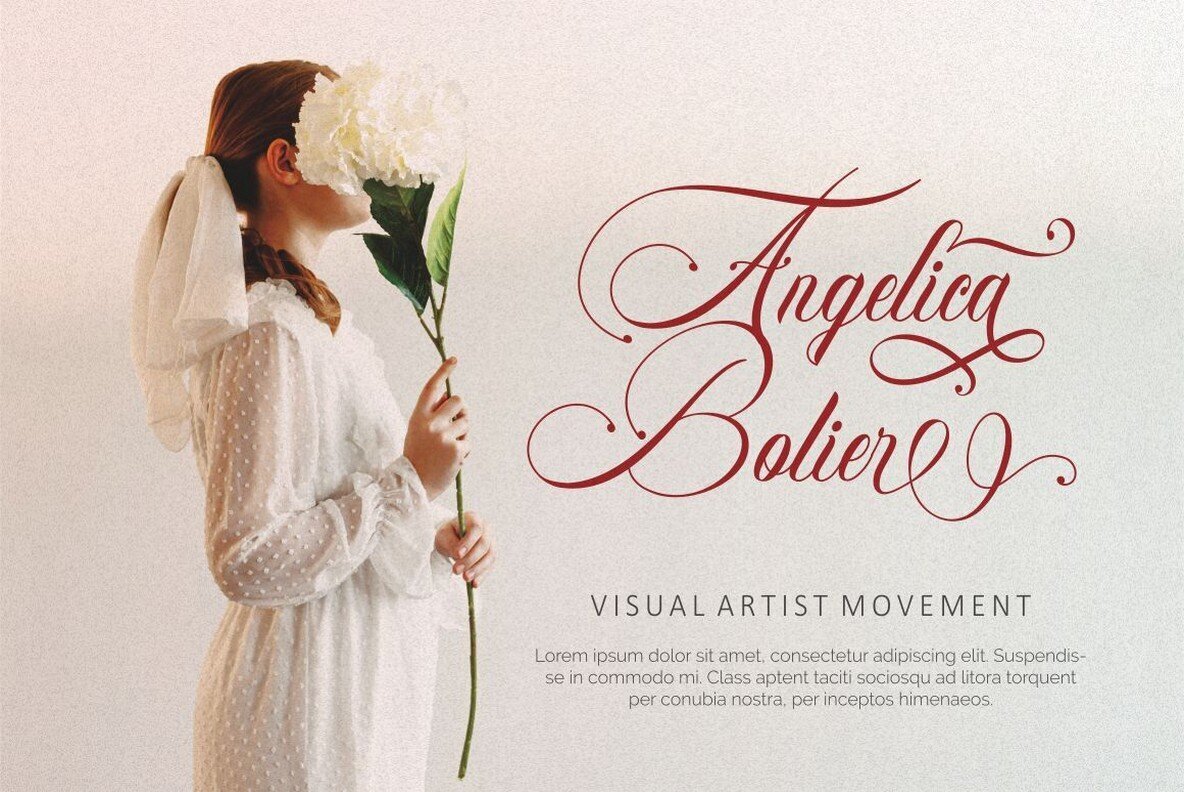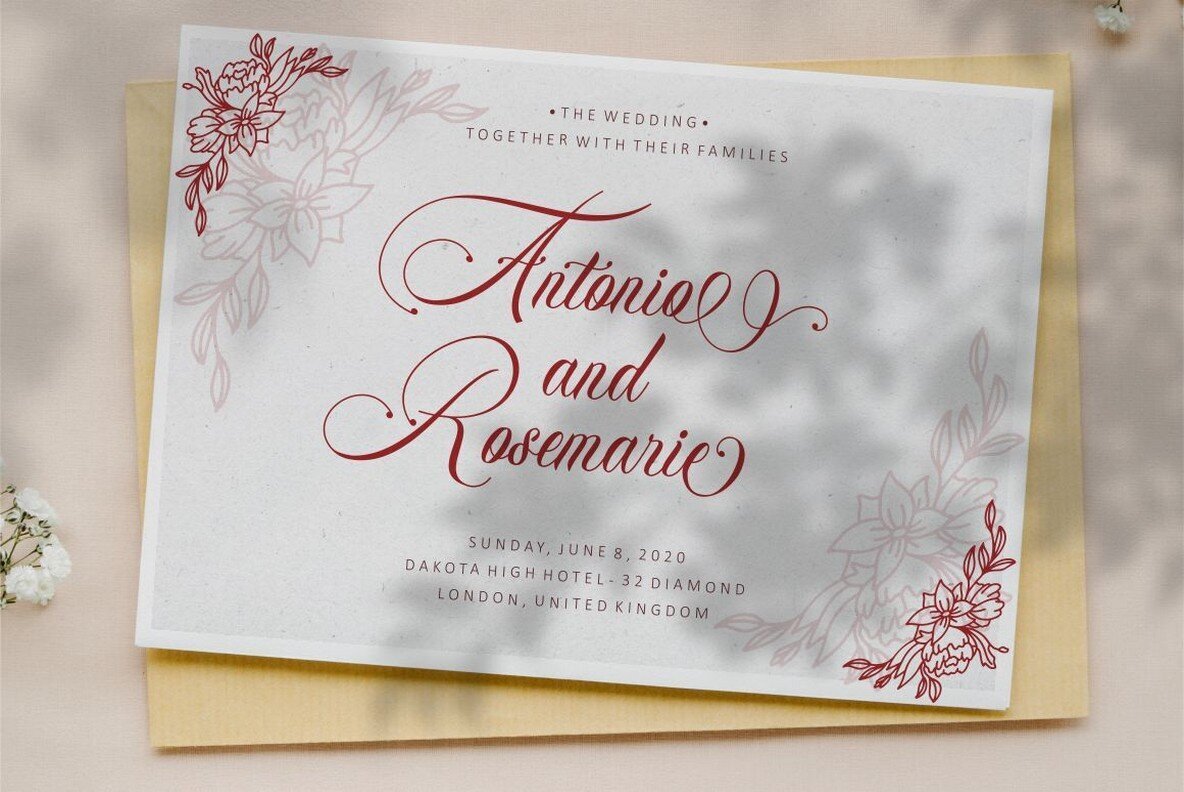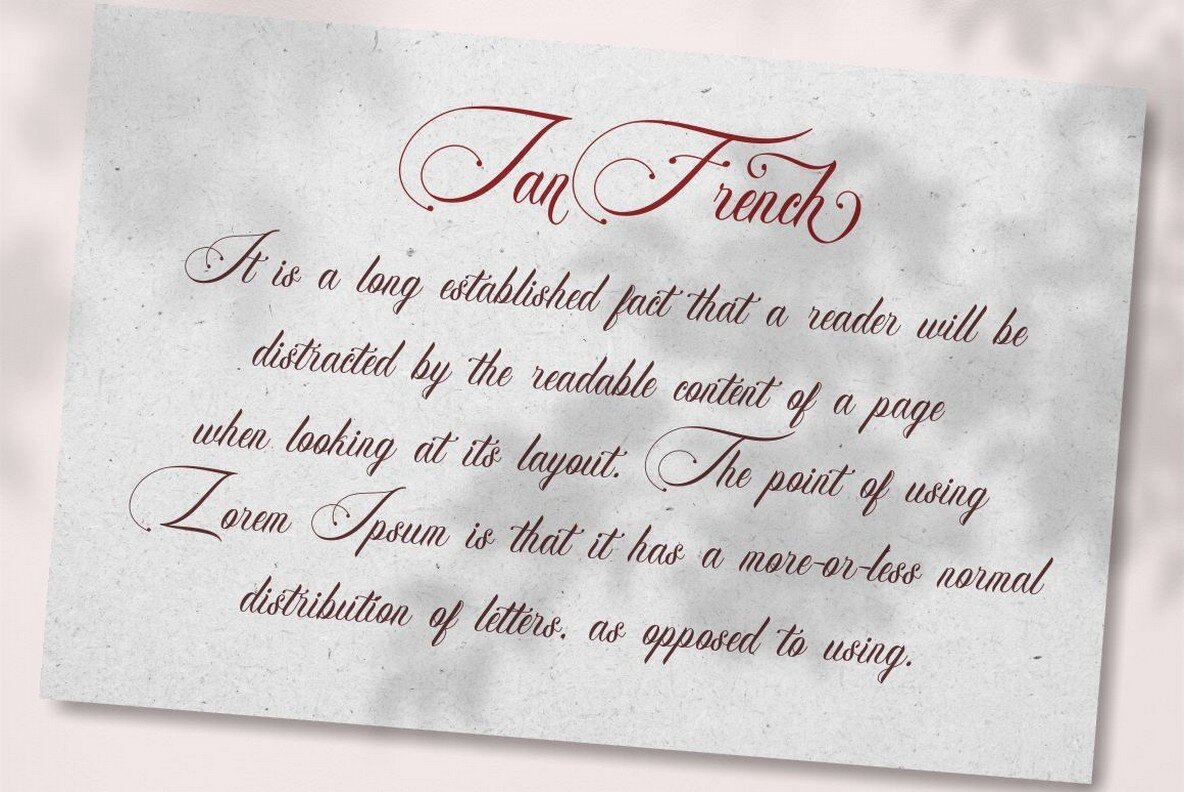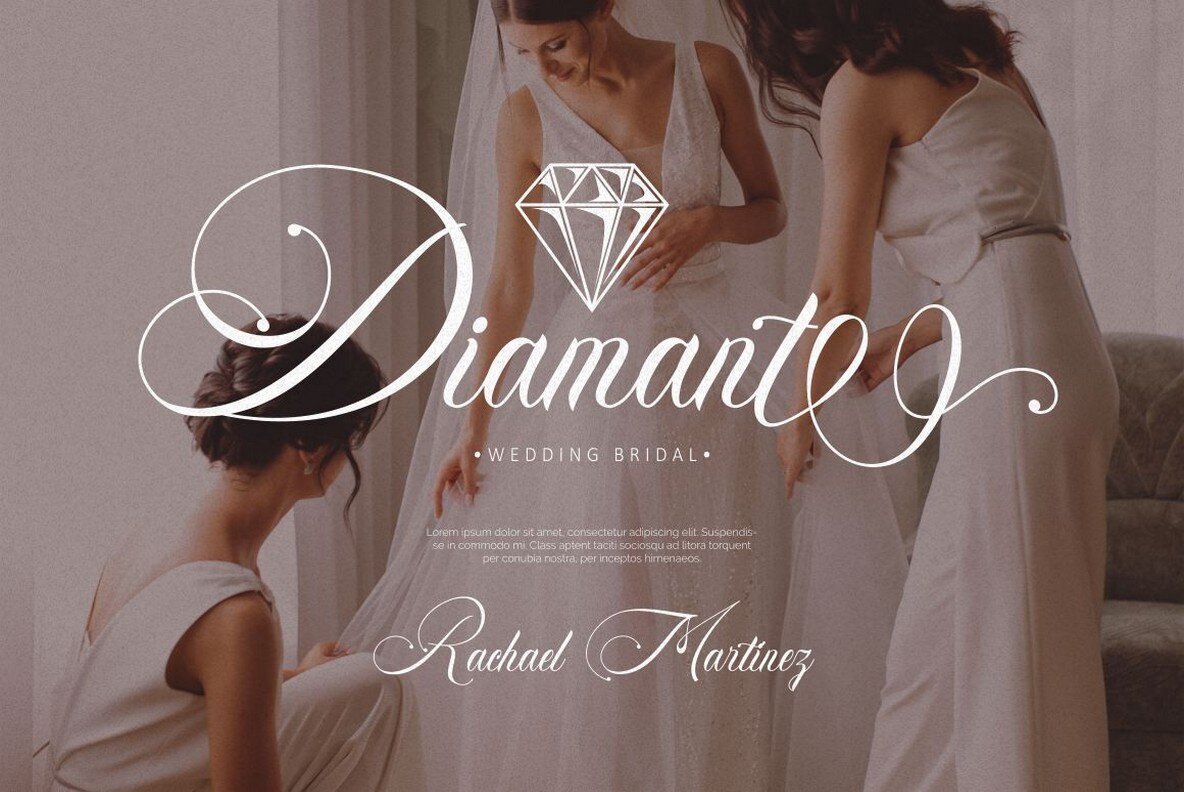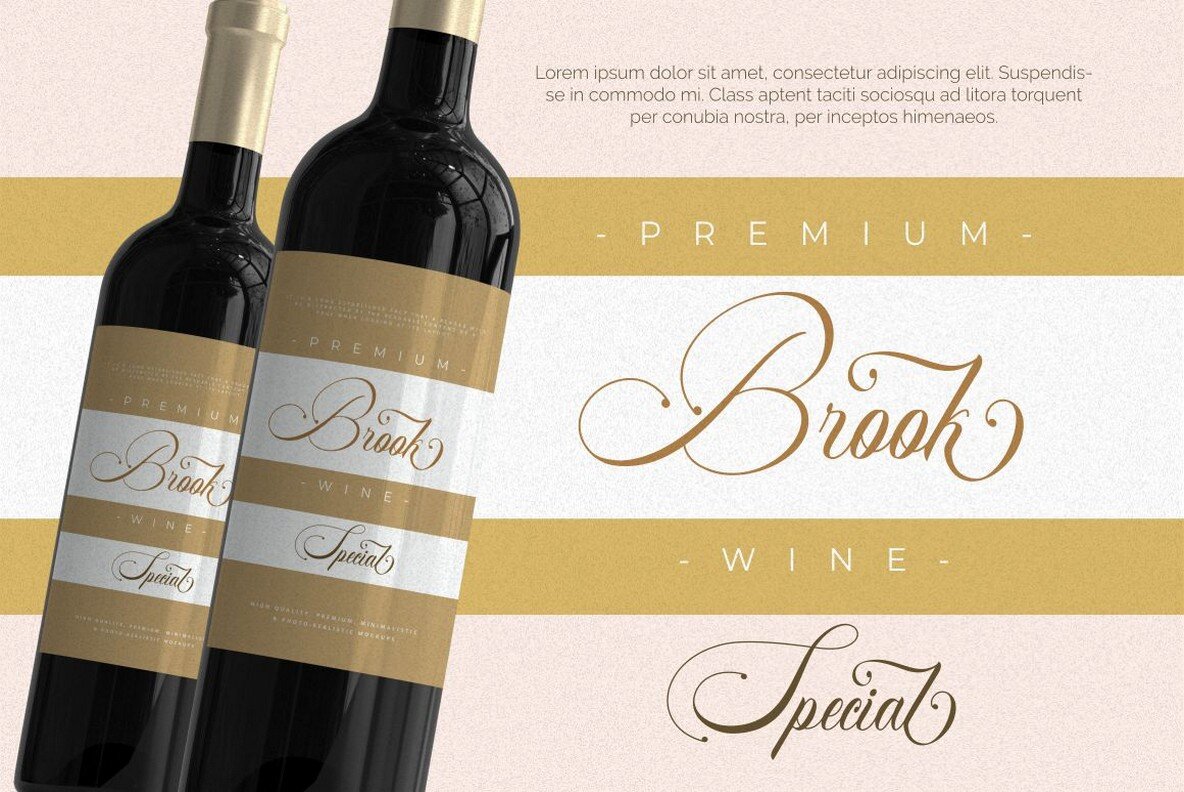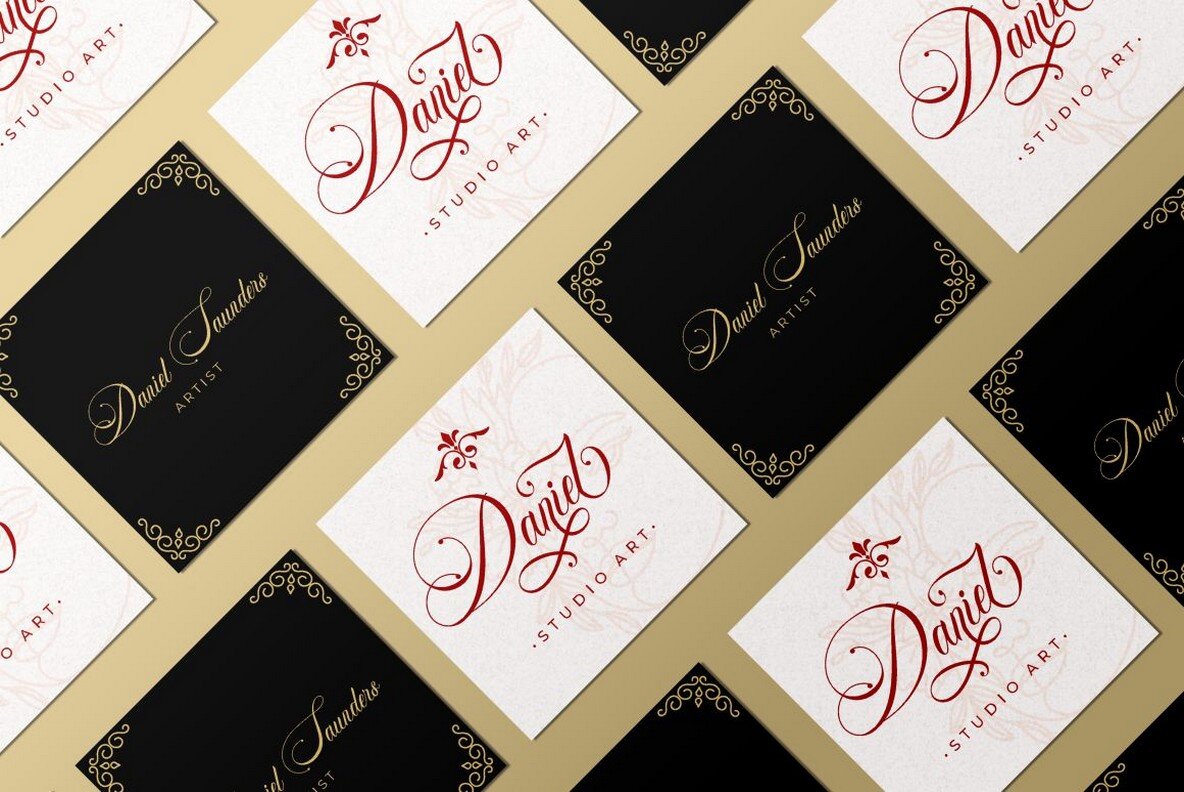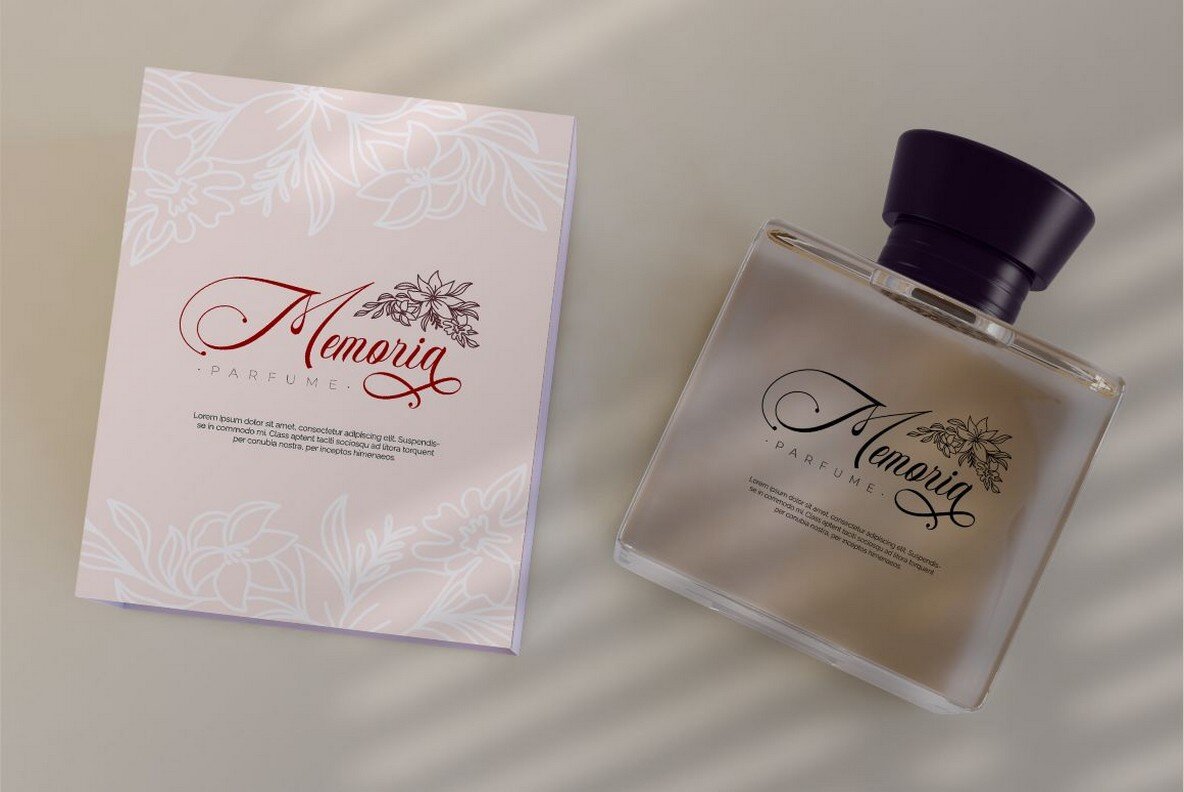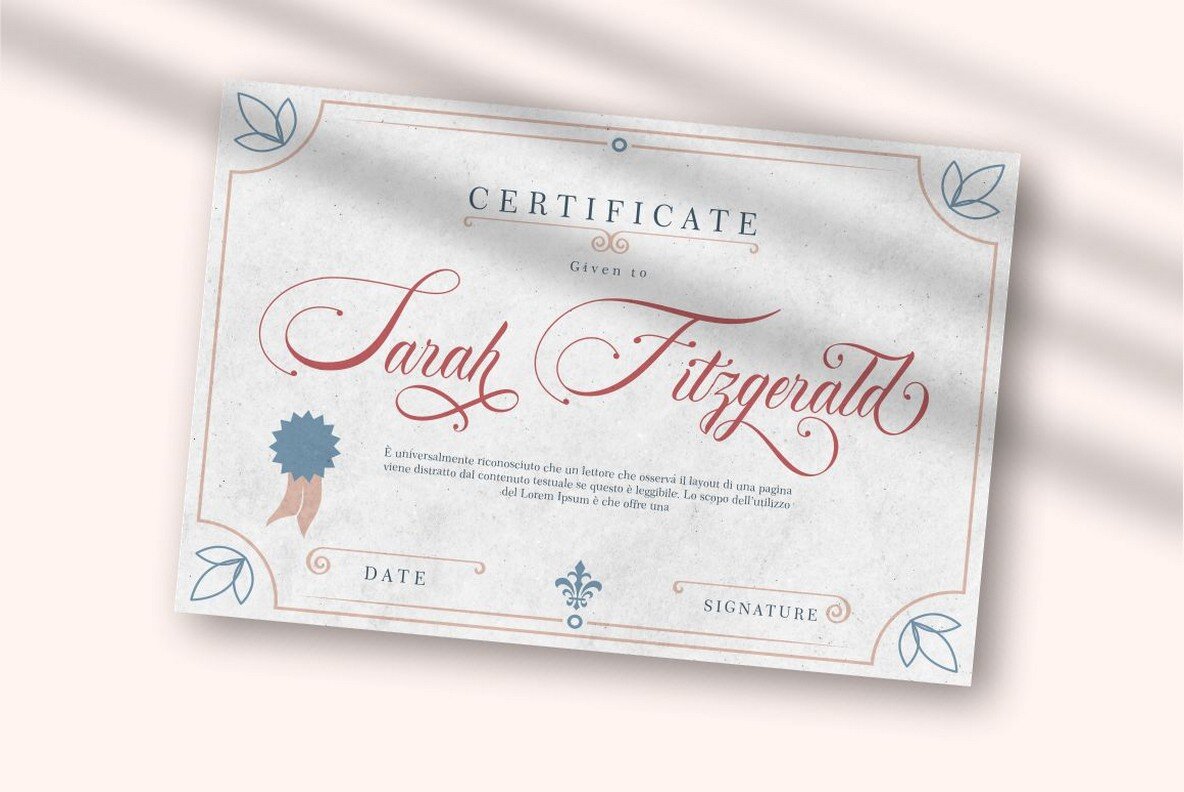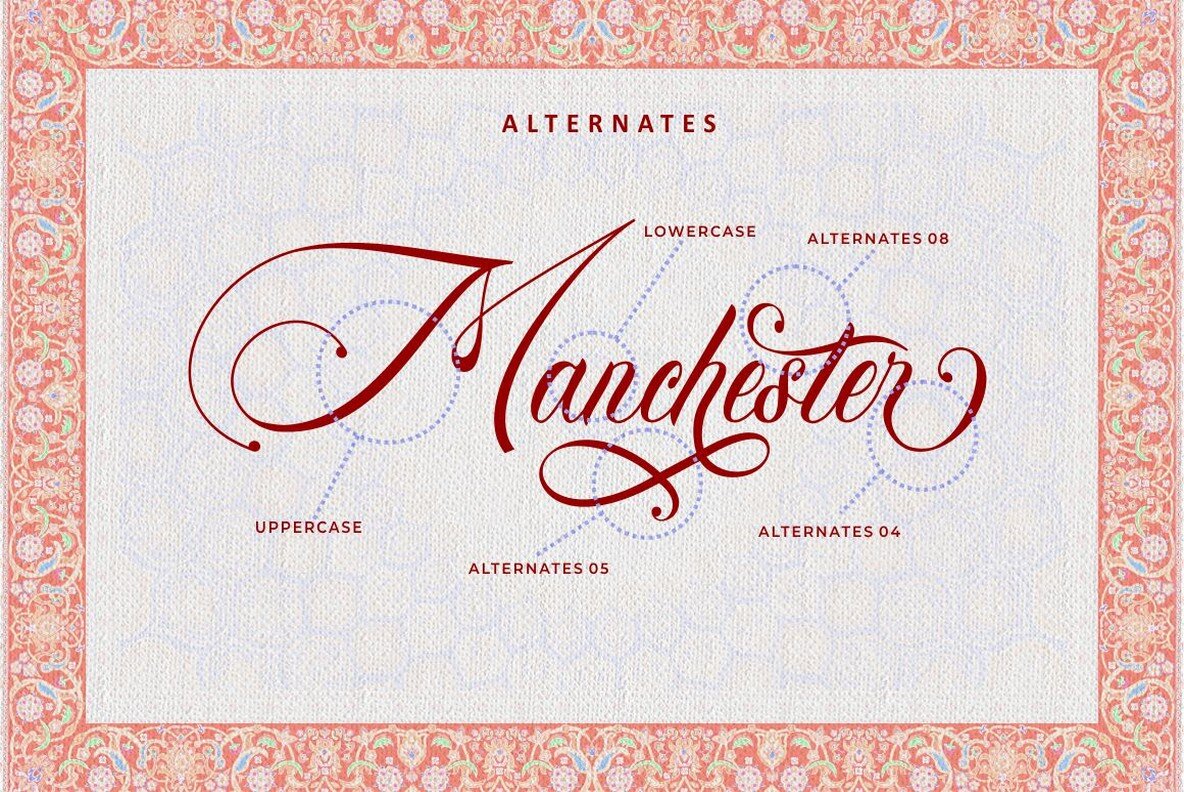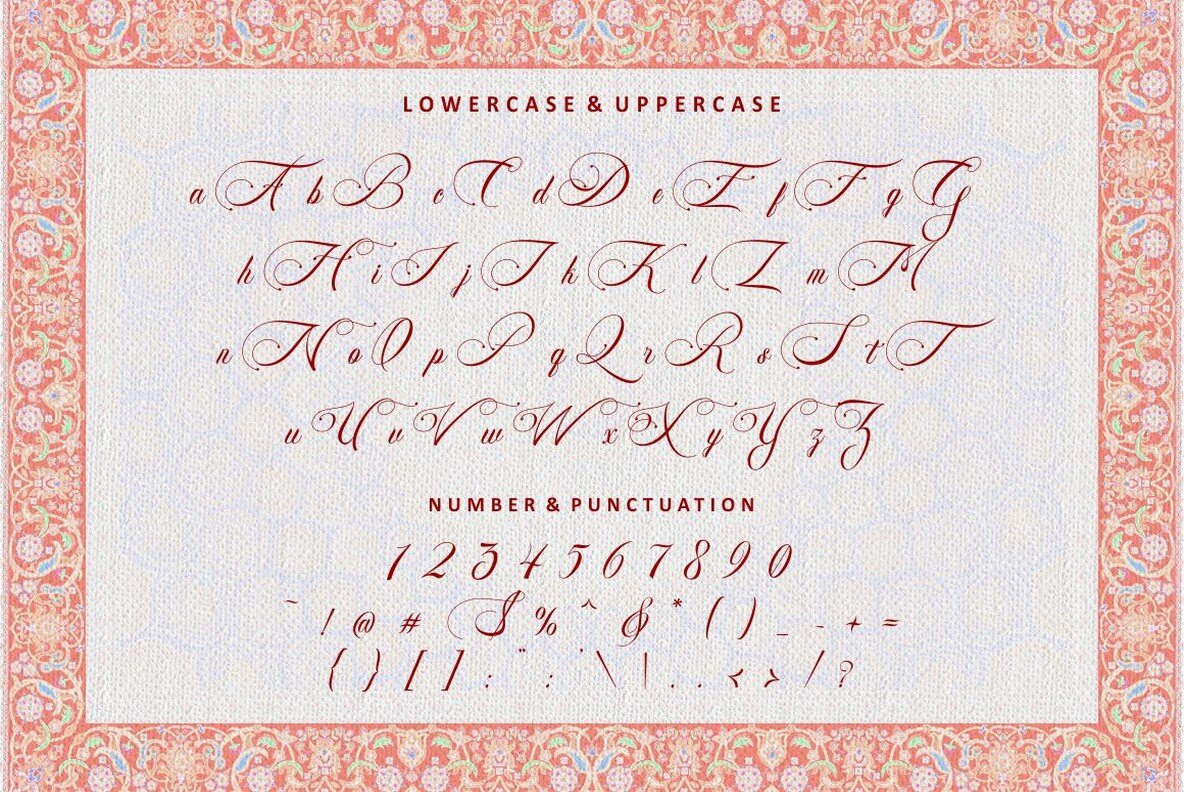
Glamorous Carpet Font
Glamorous Carpet
Glamorous Carpet is a calligraphic font with the perfect amount of elegance. Inspired by delicate ink hand lettering, gorgeous wedding art and minimal branding designs, this luxurious design can be used in any project that requires an elegant touch!